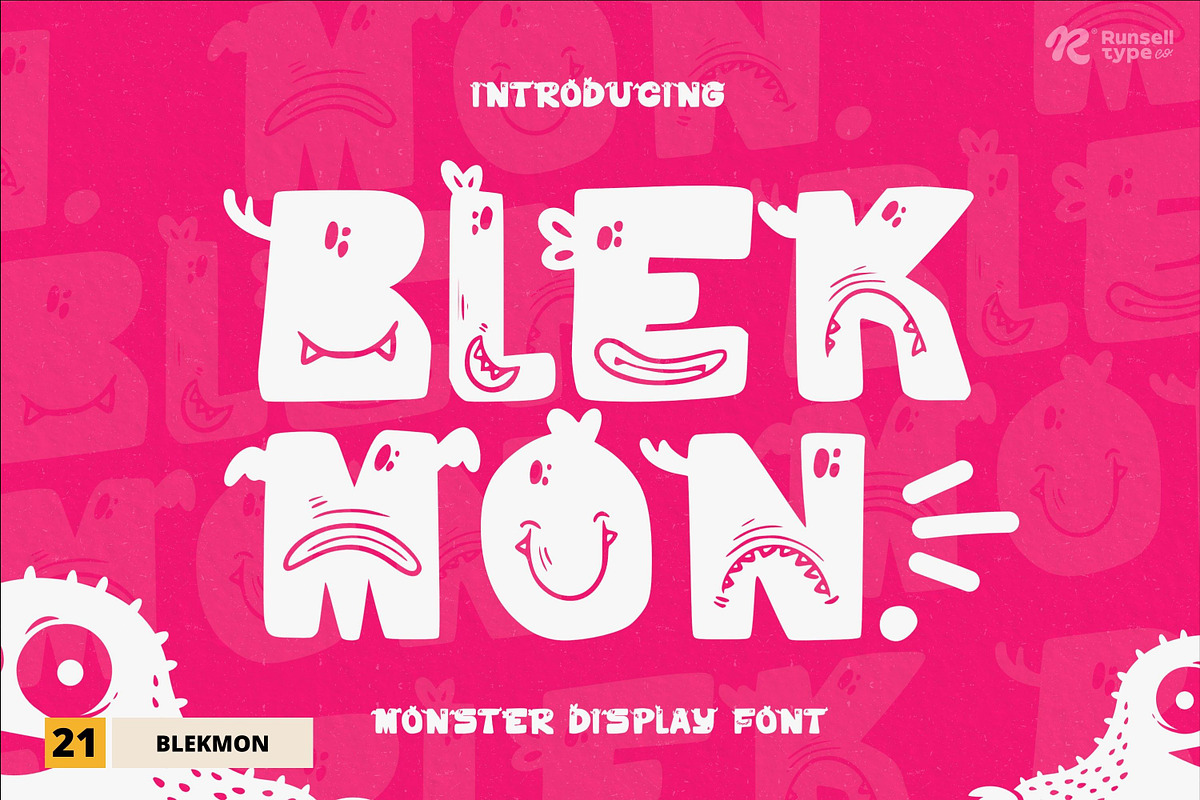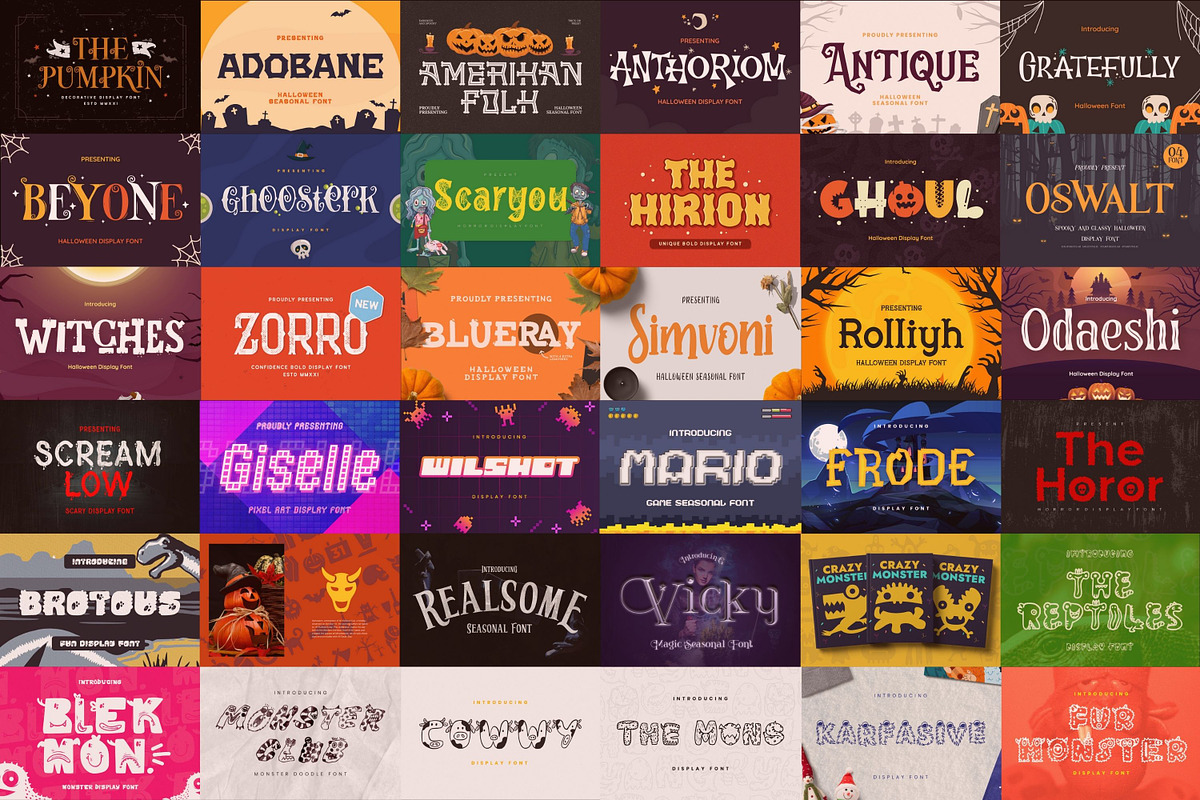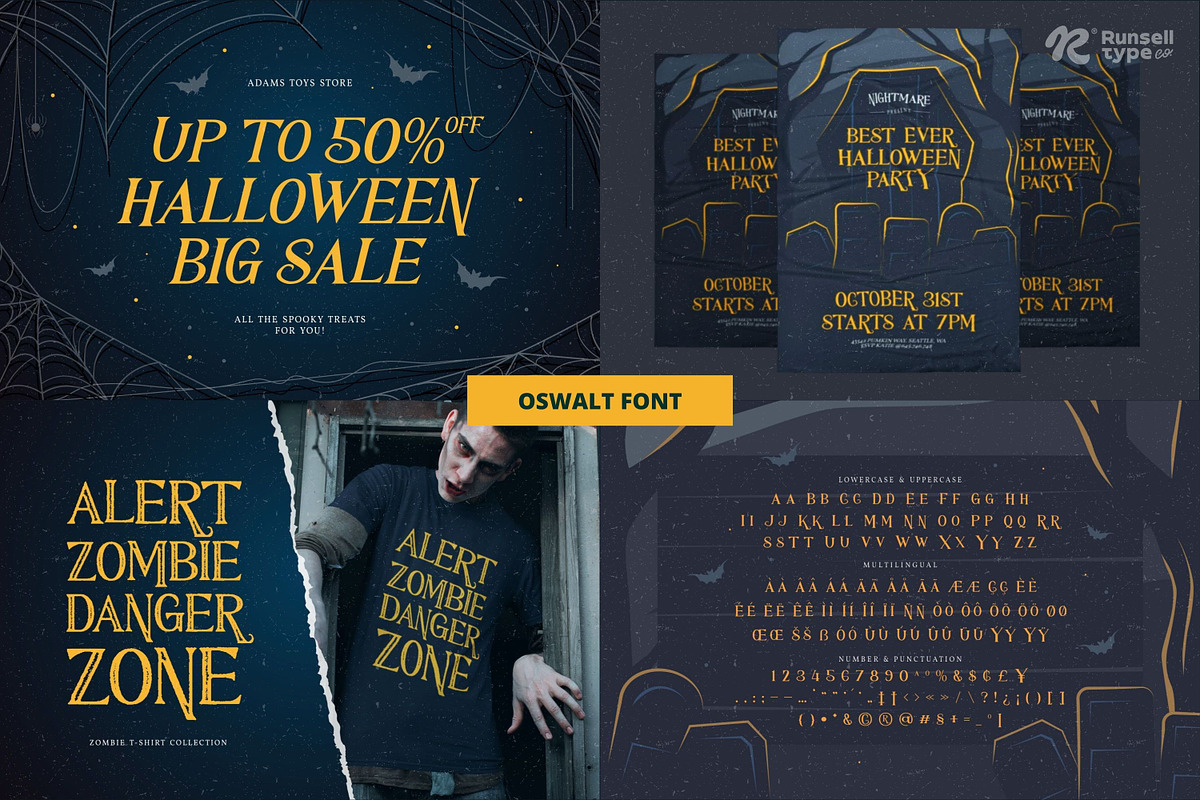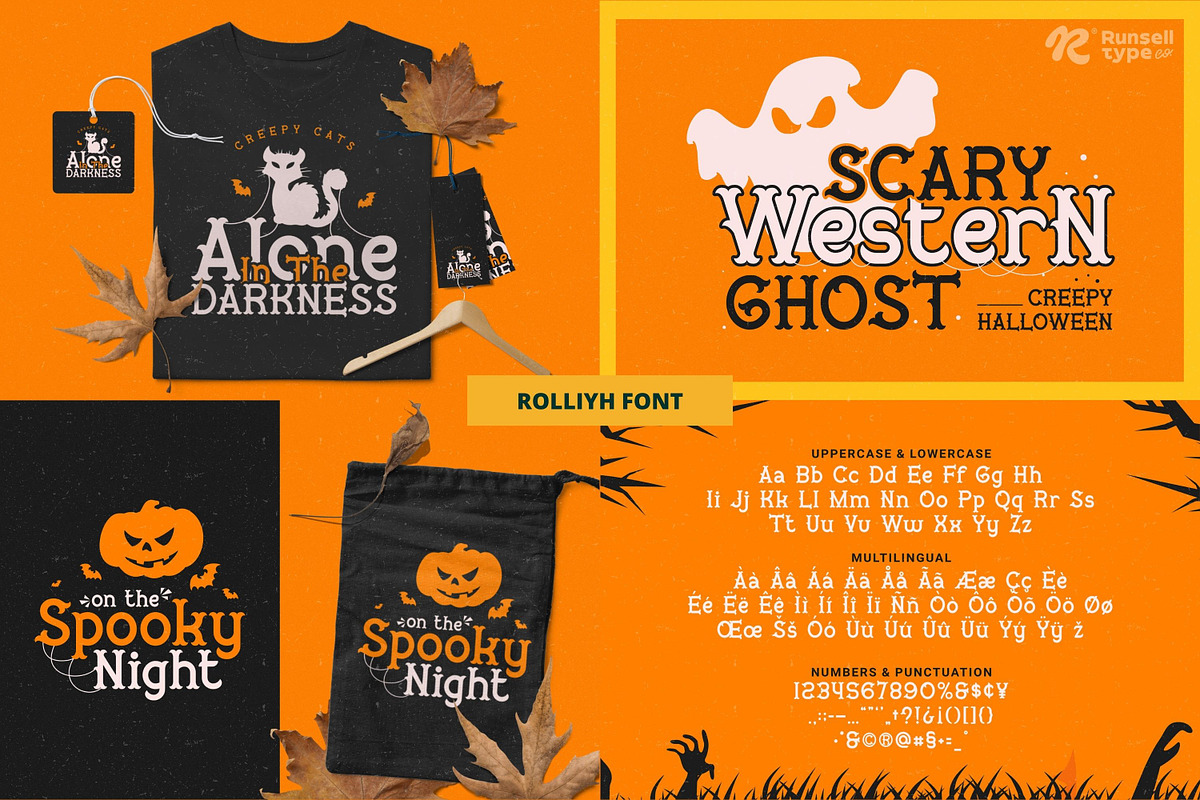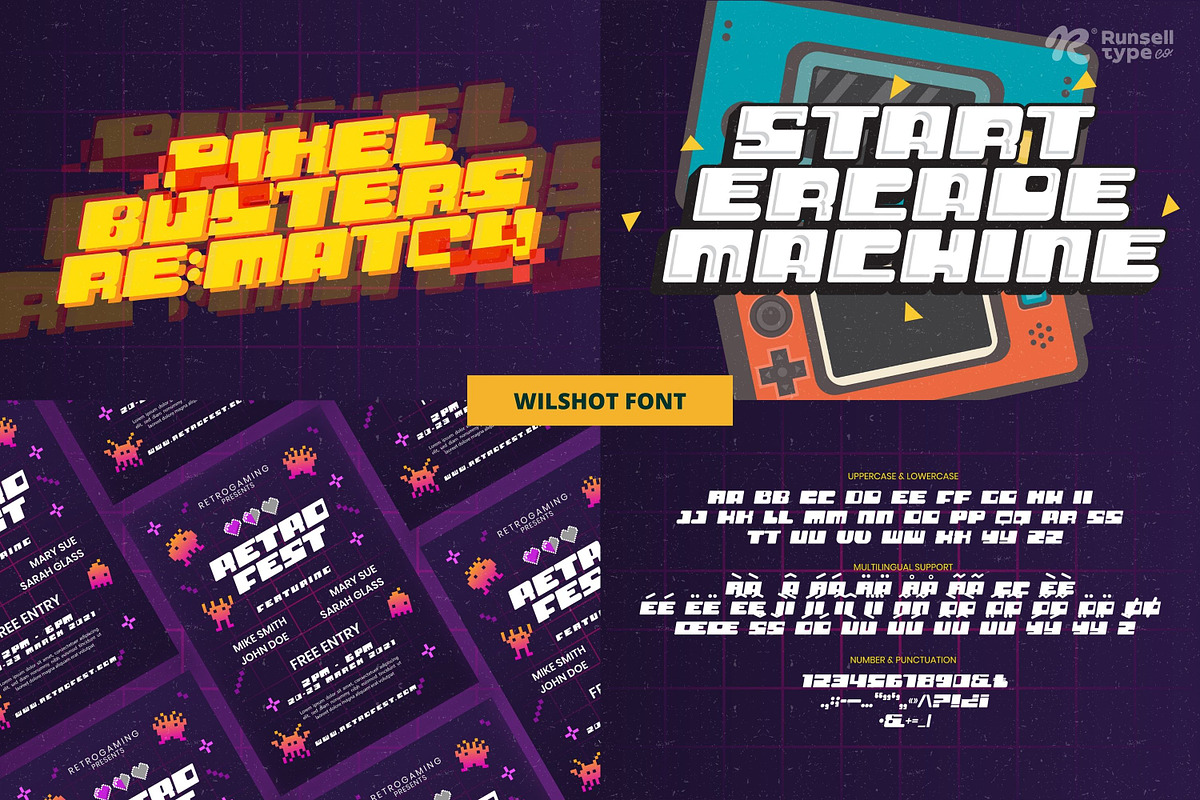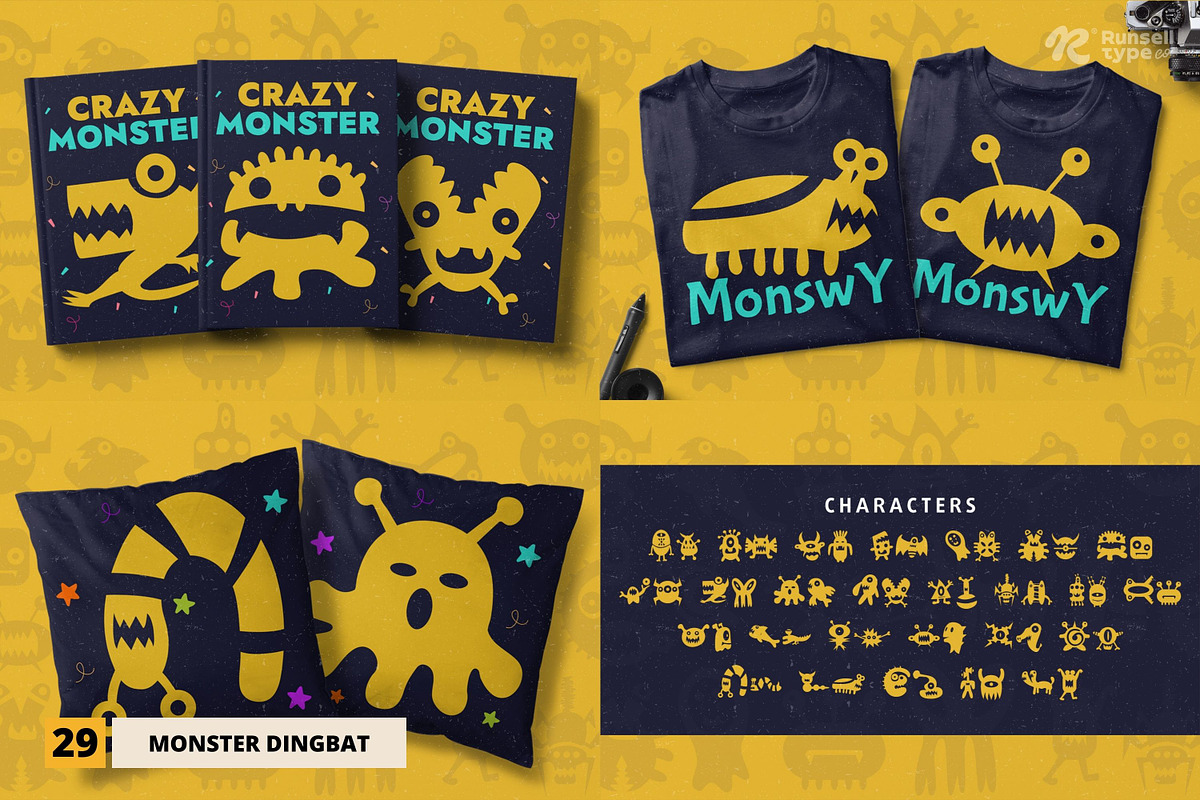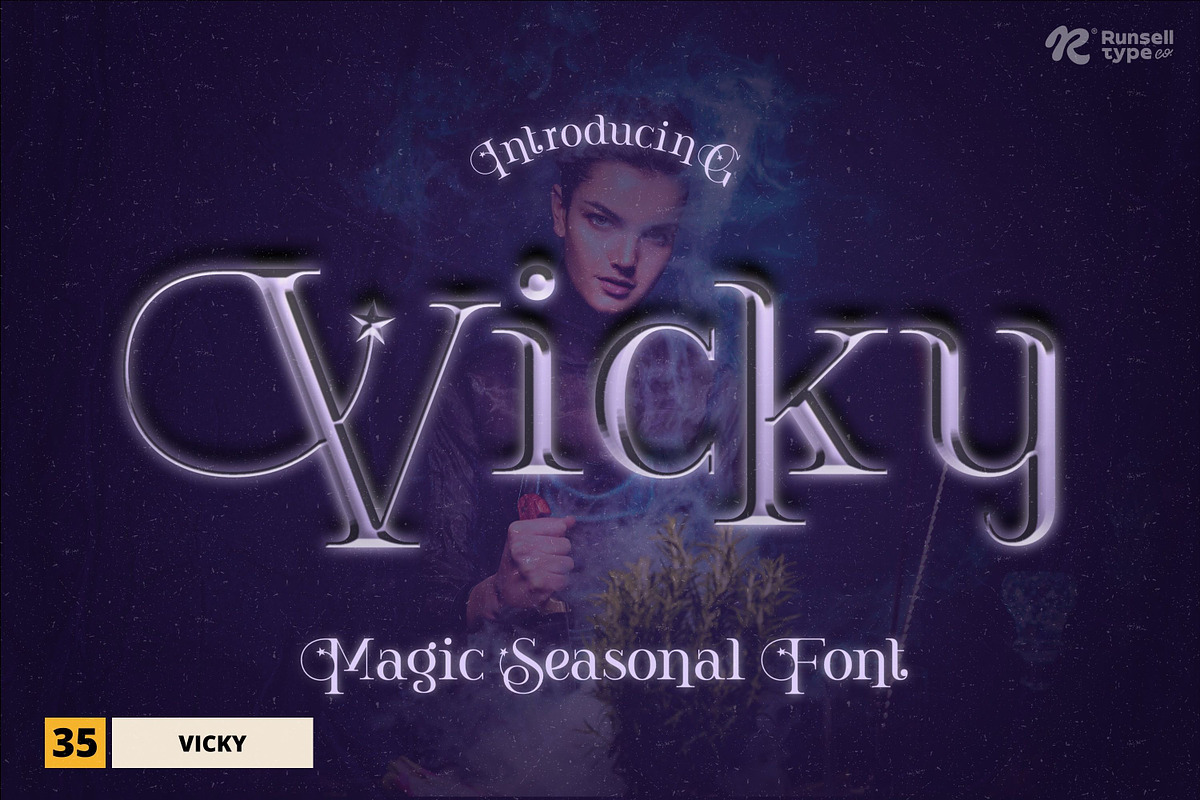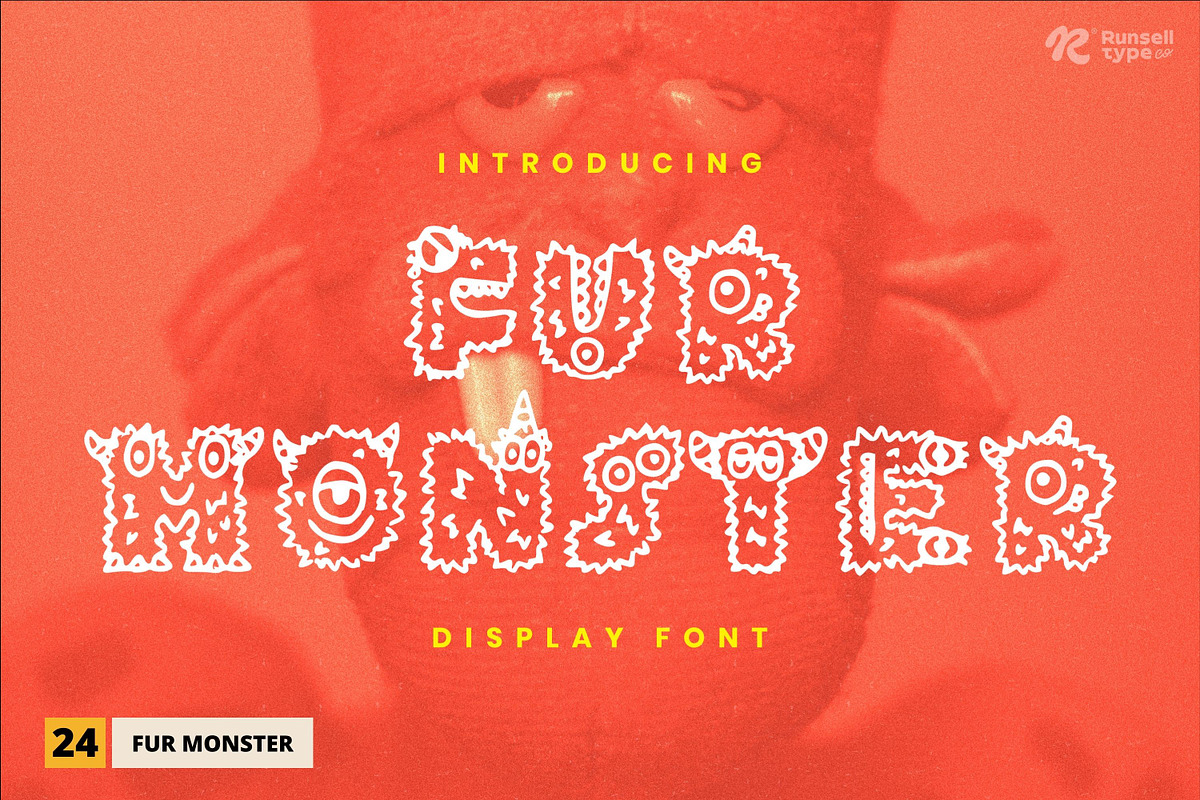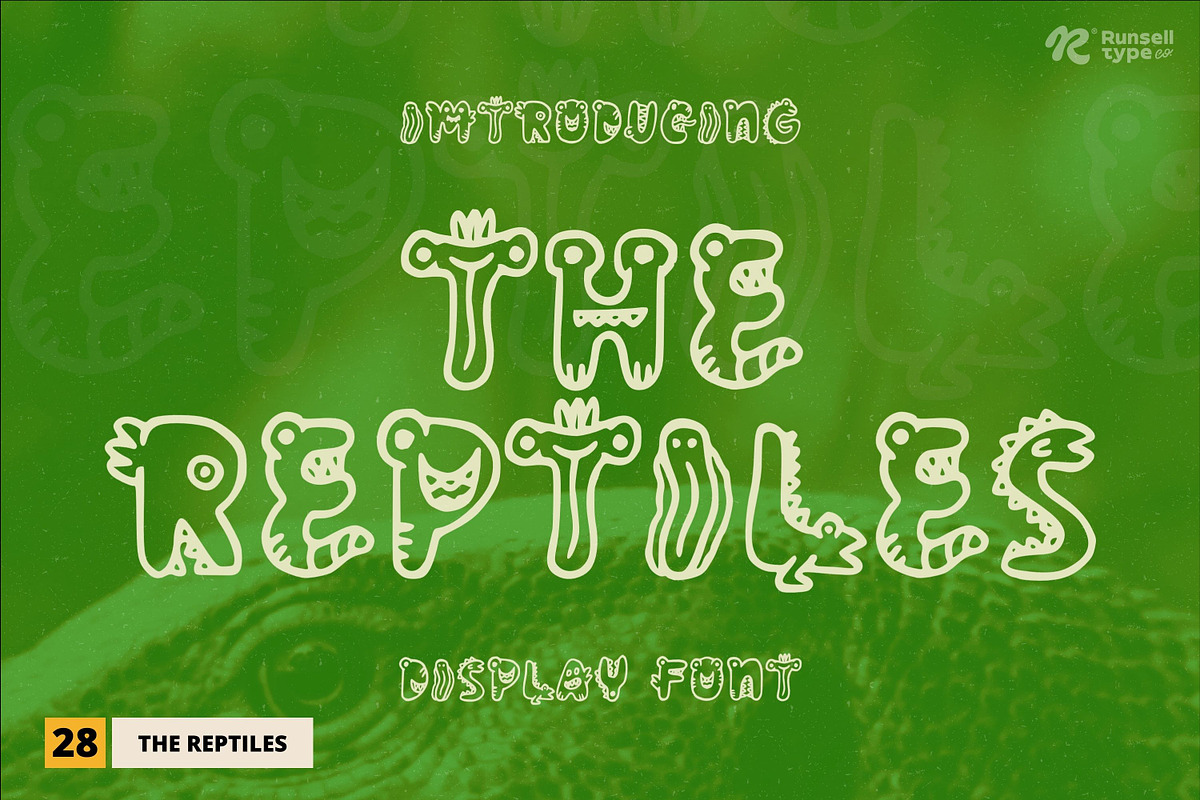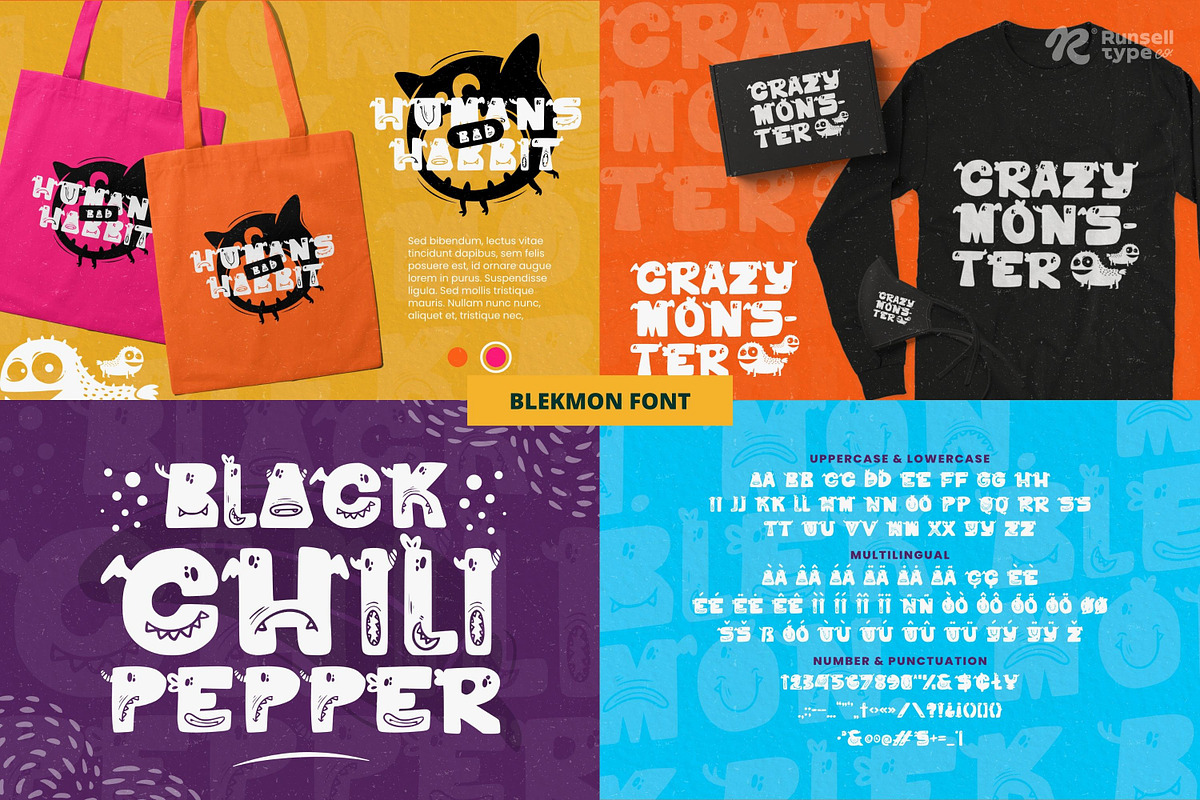
The Best Halloween Font Bundle
Halloween Fonts
- Adobane
- Amrikan Folk
- Anthuriom
- Antique
- Beyone
- Blueray
- Ghoosterk
- Ghoul
- Gratefully
- Hirion
- Odaeshi
- Oswalt
- Pumpkin
- Rolliyh
- Scaryou
- Screamlow
- Simvoni
- The Horor
- Witches
- Zorro
Monster Fonts
- Blekmon
- Brotus
- Cowwy
- Fur Monster
- Karfasive
- Monster Club
- The Mons
- The Reptiles
Game Fonts
- Frode
- Giselle
- Mario
- Wilshot
Magic & Fantasy Fonts
- Realsome
- Vicky
Dingbats
- Halloween
- Monster